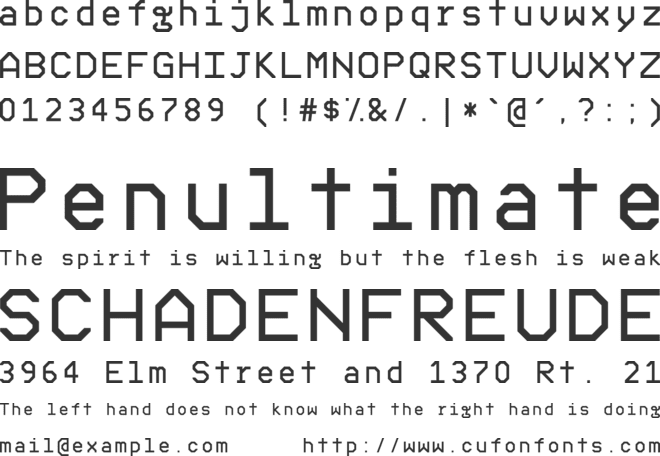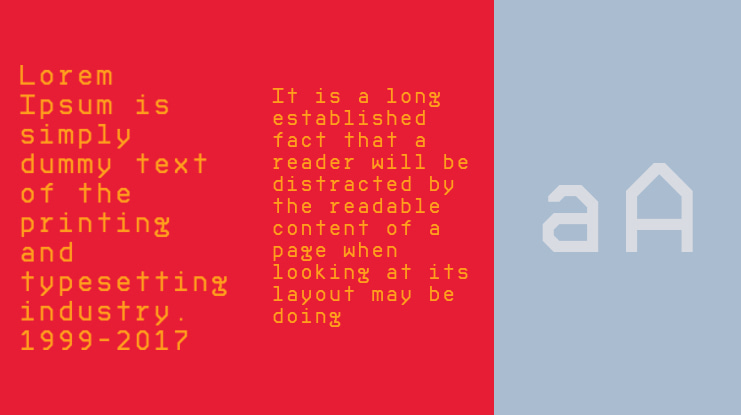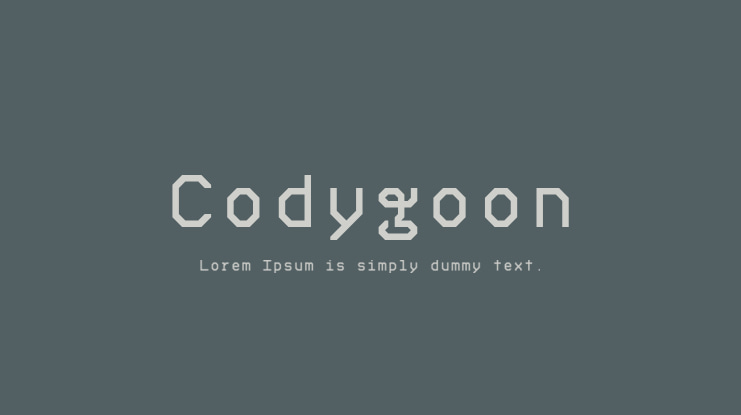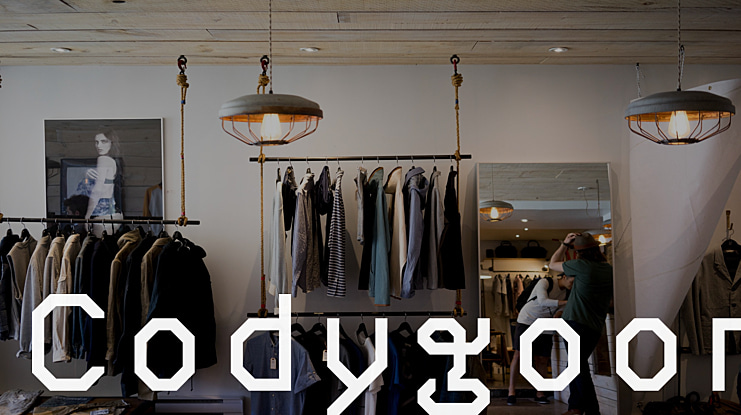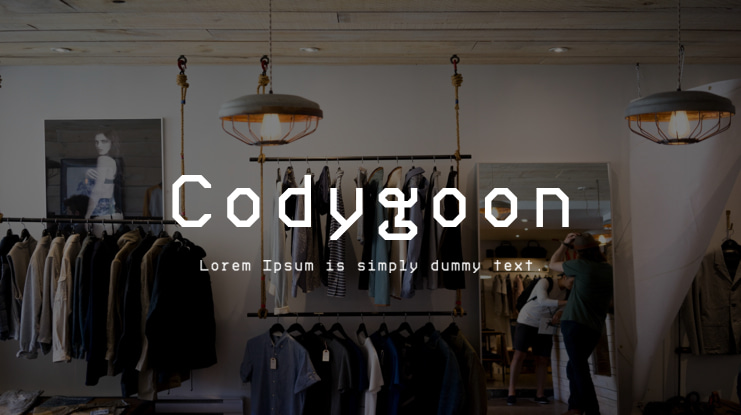
Codygoon Font
Codygoon is a monospace font that can be used for coding. This font also contains block characters to make art with the font.
The second sample is an example IRC conversation from what is my end of it.
Also contains 7-segment displays and arbitrary fraction characters in the Private Use Area.